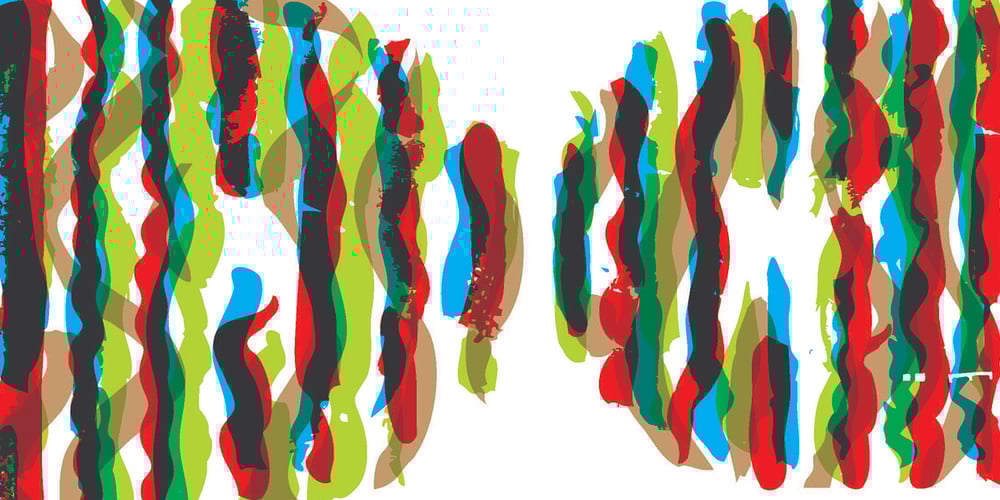
DF Park Font Family was designed by Ko Sliggers and published by Dutchfonts. DF Park contains 11 styles and family package options. DF Park is designed by Ko Sliggers from 2013-2014 and released by dutchfonts. DF Park is a font six pack with the following styles: DF Parkone DF Parktwo DF Parkthree DF Parkfour DF Parkfive DF Parksix DF Park originates from an opportunistic attempt to develop a visual language for a huge theme pavilion for a country hosting a universal exhibition about food. The subject of the strip of greenhouses dealt with the history of biodiversity with it’s scope on food production. The fonts set (six styles) is designed not only to transfer the content of the exhibition but also to dress up the greenhouses facades with its lines and patterns. All the characters are composed of hand-painted lines when superimposed, form an endless variety of (letter)forms. Executed in transparent colourful layers you will find yourself entering a cathedral on a sunny day. In black and white it is more a charcoal calligraphy.